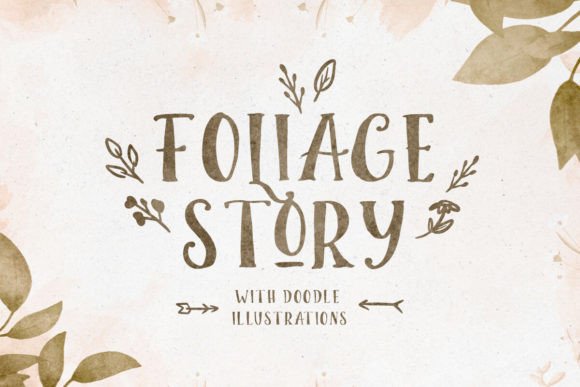
Foliage Story Font: Elevate Your Designs with Organic Elegance
The world of typography is vast and diverse, with countless font styles to choose from, each with its unique character and charm. For designers, artists, and crafters seeking a font that embodies the essence of nature and organic elegance, the Foliage Story Font is an exceptional choice. This hand-lettering serif font, with its natural and effortless look, is perfectly complemented by a bunch of delightful doodle illustrations, making it an incredibly versatile tool for a wide range of creative projects.
The Essence of Foliage Story Font
Foliage Story is not just a font; it’s an experience. It brings to the table a refreshing organic feel that is hard to find in digital typography. The hand-lettering serif style gives it a personal and intimate touch, reminiscent of handwritten notes and vintage letters. This font is meticulously designed to mimic the natural flow and imperfections of handwriting, making each letter and word unique.
Key Features of Foliage Story Font
- Hand-Lettering Serif Style: Offers a unique, personal touch to your designs.
- Organic and Natural Look: Perfect for projects that require an earthy, vintage feel.
- Complimentary Doodle Illustrations: A set of illustrations that can enhance your designs and provide a creative boost.
- Multi-Language Support: Reach a broader audience with a font that supports multiple languages.
- Versatile Usage: Ideal for branding, vintage lettering, logos, wedding invitations, quotes, and more.
Exploring the Uses of Foliage Story Font
The versatility of Foliage Story Font is one of its most compelling features. Whether you’re a professional designer, a small business owner, or an individual looking for a unique way to express yourself, this font offers endless possibilities.
Design and Branding
For businesses and brands aiming to establish a natural and approachable image, Foliage Story Font can be a game-changer. Its organic look and feel can add a layer of authenticity to your brand’s visual identity, making it more relatable to your audience.
Vintage Lettering and Logos
The vintage essence of Foliage Story makes it perfect for creating classic logos and lettering that stand out. You can use it to design timeless logos that evoke a sense of nostalgia and tradition.
Wedding Invitations and Stationery
For weddings and special occasions, Foliage Story can add a touch of elegance and whimsy. Design beautiful invitations, save-the-date cards, and stationery that reflect the joy and beauty of your event.
Quotes and Typography Art
Typography artists and enthusiasts can use Foliage Story to create stunning quotes and artworks. The font’s natural flow and the accompanying doodle illustrations can inspire unique pieces that resonate with viewers.
The Power of Doodle Illustrations
The doodle illustrations that come with Foliage Story Font are more than just additional graphics; they’re a creative catalyst. These illustrations are designed to complement the font’s organic feel, providing a cohesive and harmonious visual experience.
Enhancing Your Designs
You can use these illustrations to enhance your designs, add visual interest, and create a more engaging experience for your audience. Whether you’re designing a logo, a website, or marketing materials, these illustrations can play a crucial role in bringing your vision to life.
Inspiration and Creativity
Sometimes, all it takes is a little inspiration to spark creativity. The doodle illustrations provided with Foliage Story Font can serve as a starting point for your projects, helping you to explore new ideas and experiment with different design approaches.
Multi-Language Support
In a globalized world, reaching a diverse audience is more important than ever. The Foliage Story Font, with its multi-language support, allows you to communicate effectively with people from different linguistic backgrounds.
Breaking Language Barriers
Whether you’re creating content for a blog, a business, or a creative project, the ability to support multiple languages can significantly expand your reach. This feature makes Foliage Story Font an excellent choice for international brands, bloggers, and artists.
Global Design Opportunities
With Foliage Story, you can design materials for a global audience without worrying about language limitations. This opens up new opportunities for designers and businesses looking to make an impact across borders.
Foliage Story Font is more than just a typography tool; it’s a gateway to creating designs that resonate with warmth, personality, and a natural aesthetic. Its hand-lettering serif style, organic look, and accompanying doodle illustrations make it a versatile asset for any creative project. With its multi-language support, the possibilities extend even further, offering a global reach for your designs.
Whether you’re a seasoned designer or just starting out, Foliage Story Font can elevate your work, adding a touch of elegance and whimsy that’s hard to achieve with standard fonts. So, dive into the world of Foliage Story, and let its organic charm inspire your next design project.